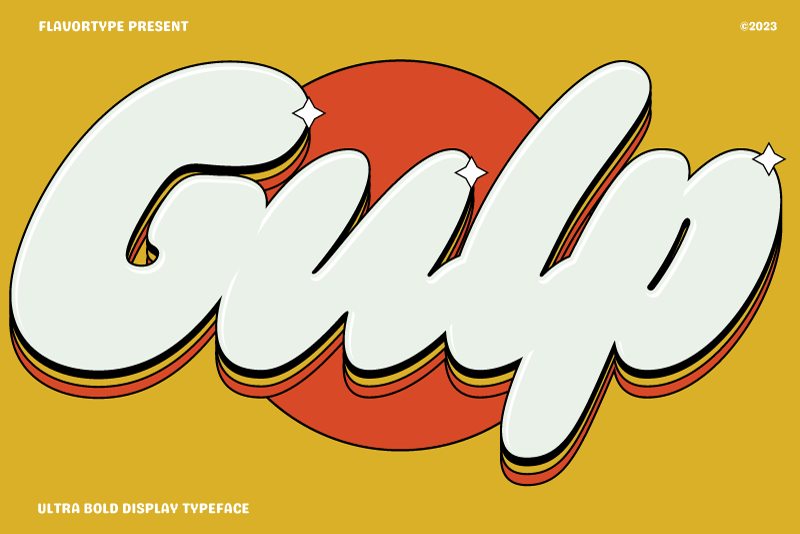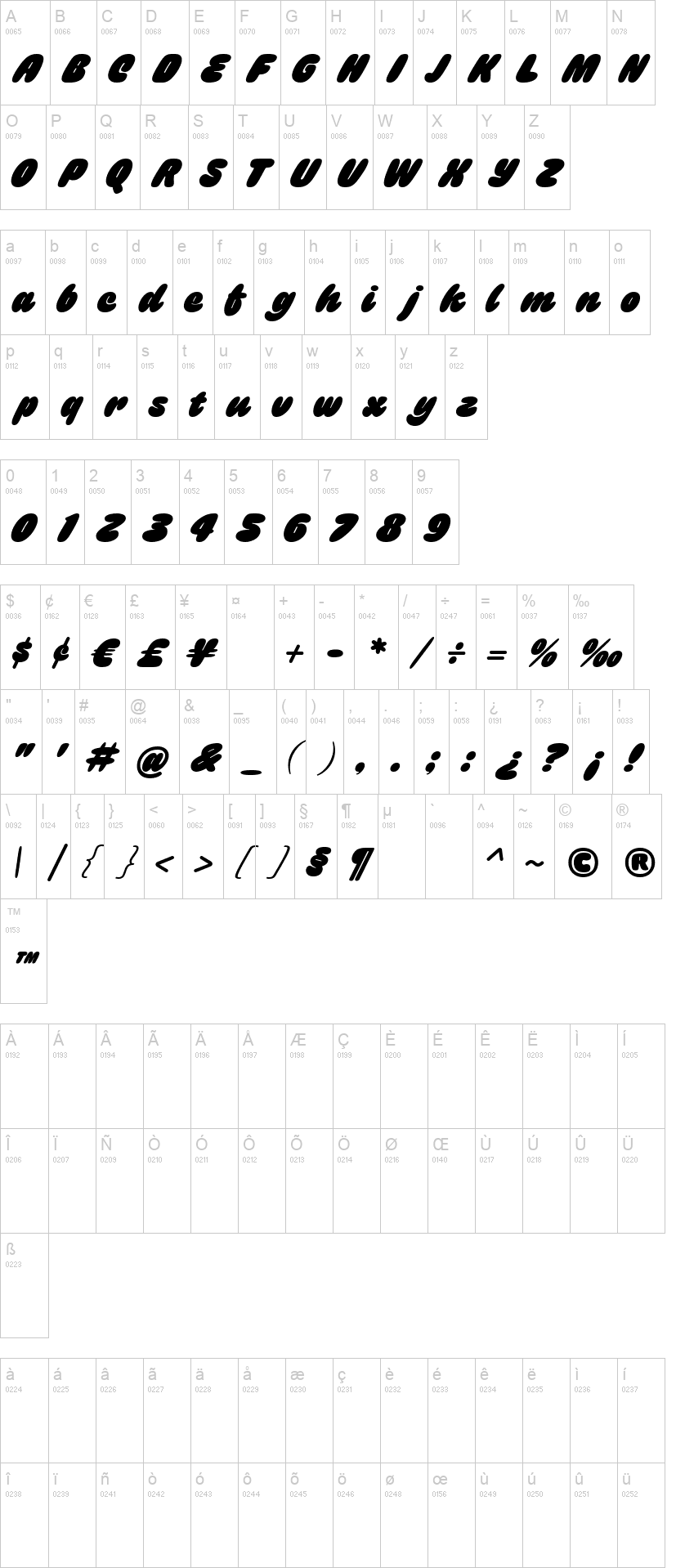
GULP font is a playful and fun font inspired by pop art, hippie and comic book styles. It's groovy, funky and retro with an ultra-bold and fat appearance, making it perfect for eye-catching headers and short word texts.